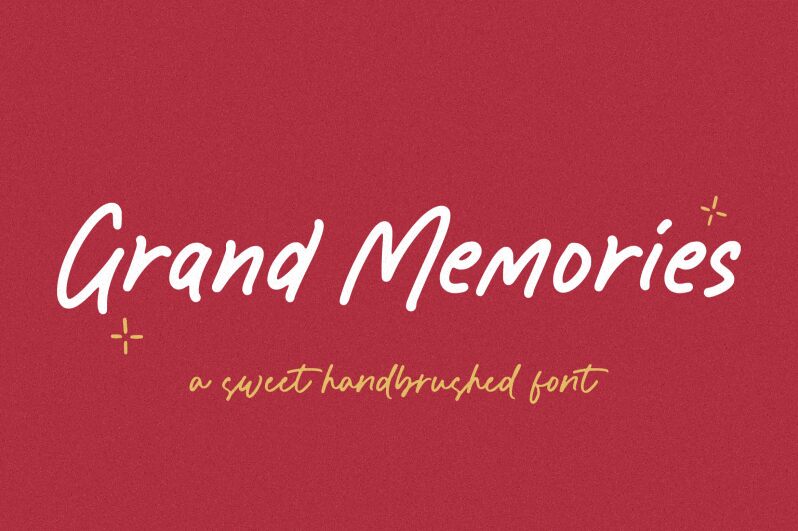
Grand Memories
Grand Memories, a captivating handwritten font crafted by the talented team at Balpirick Studio, exudes a warm, nostalgic charm. This expressive typeface seamlessly blends the organic flow of calligraphic strokes with subtle imperfections, creating a sense of authenticity and personality. The distinct, slightly uneven letterforms and delicate flourishes evoke a handcrafted aesthetic, inviting the viewer to immerse themselves in the timeless beauty of the written word.
With its versatile nature, Grand Memories can elevate a wide range of design projects, from editorial layouts and product packaging to invitations and branding materials. Its natural, expressive qualities make it an excellent choice for capturing the essence of personal narratives, artisanal products, or any design that seeks to convey a heartfelt, handmade touch.